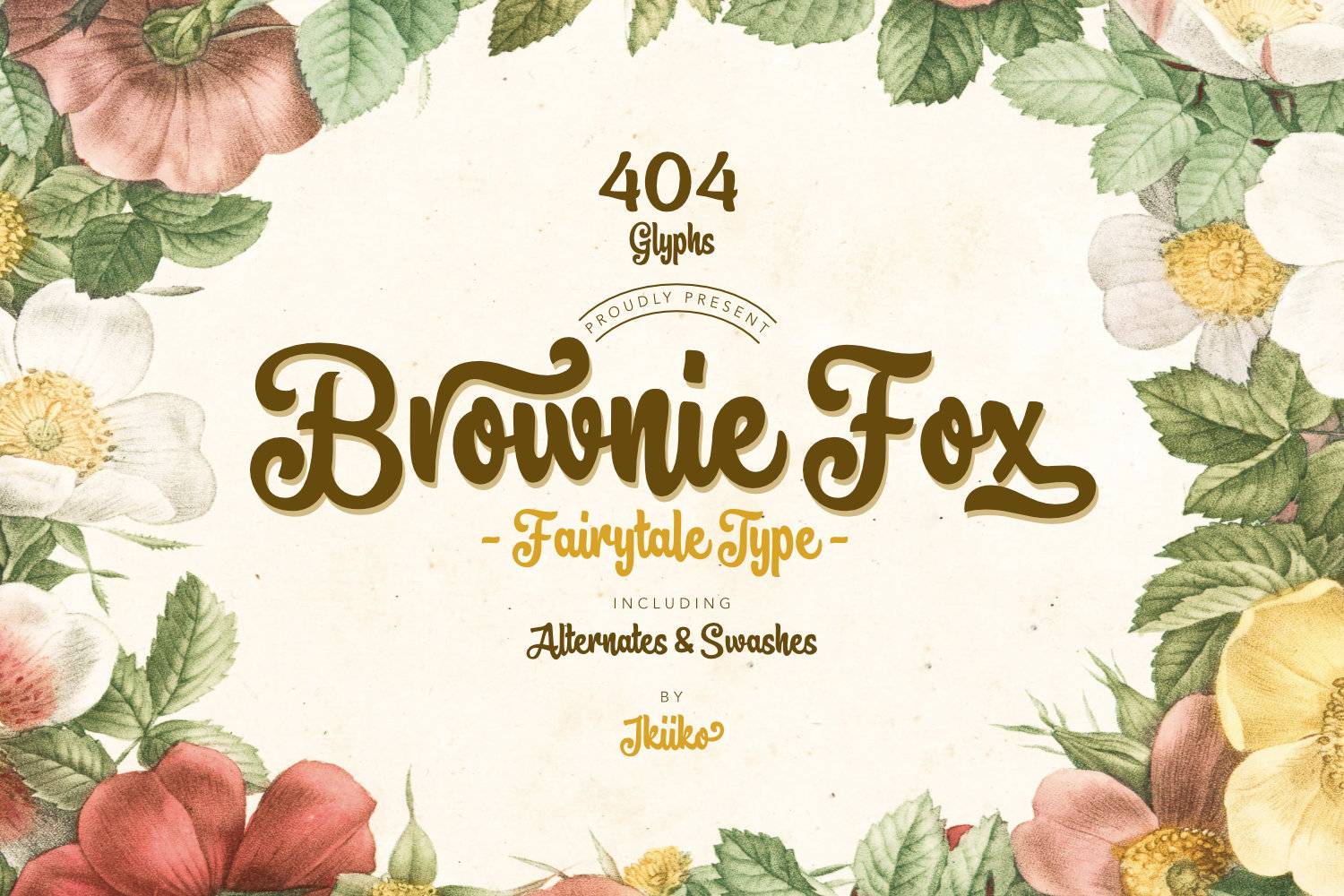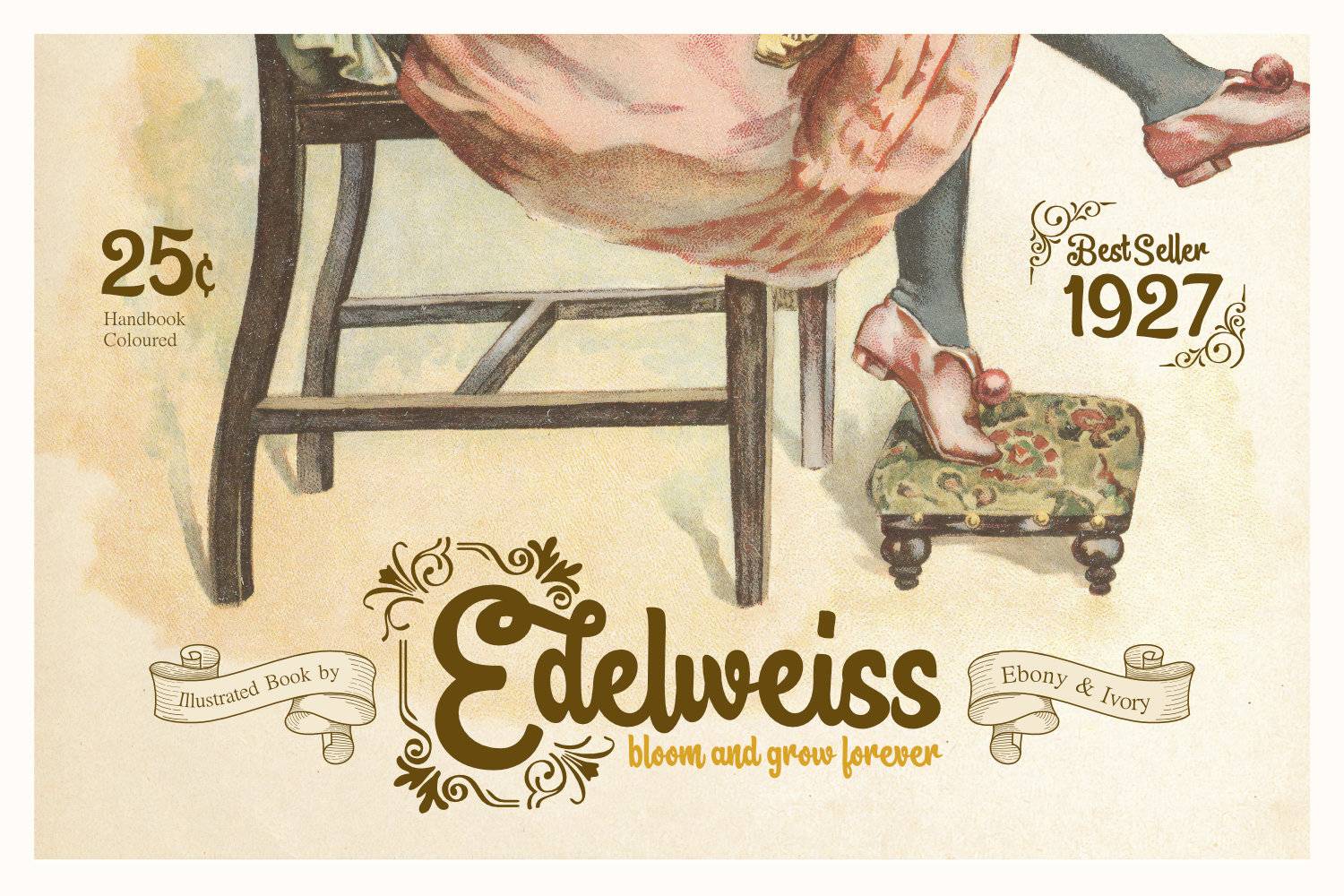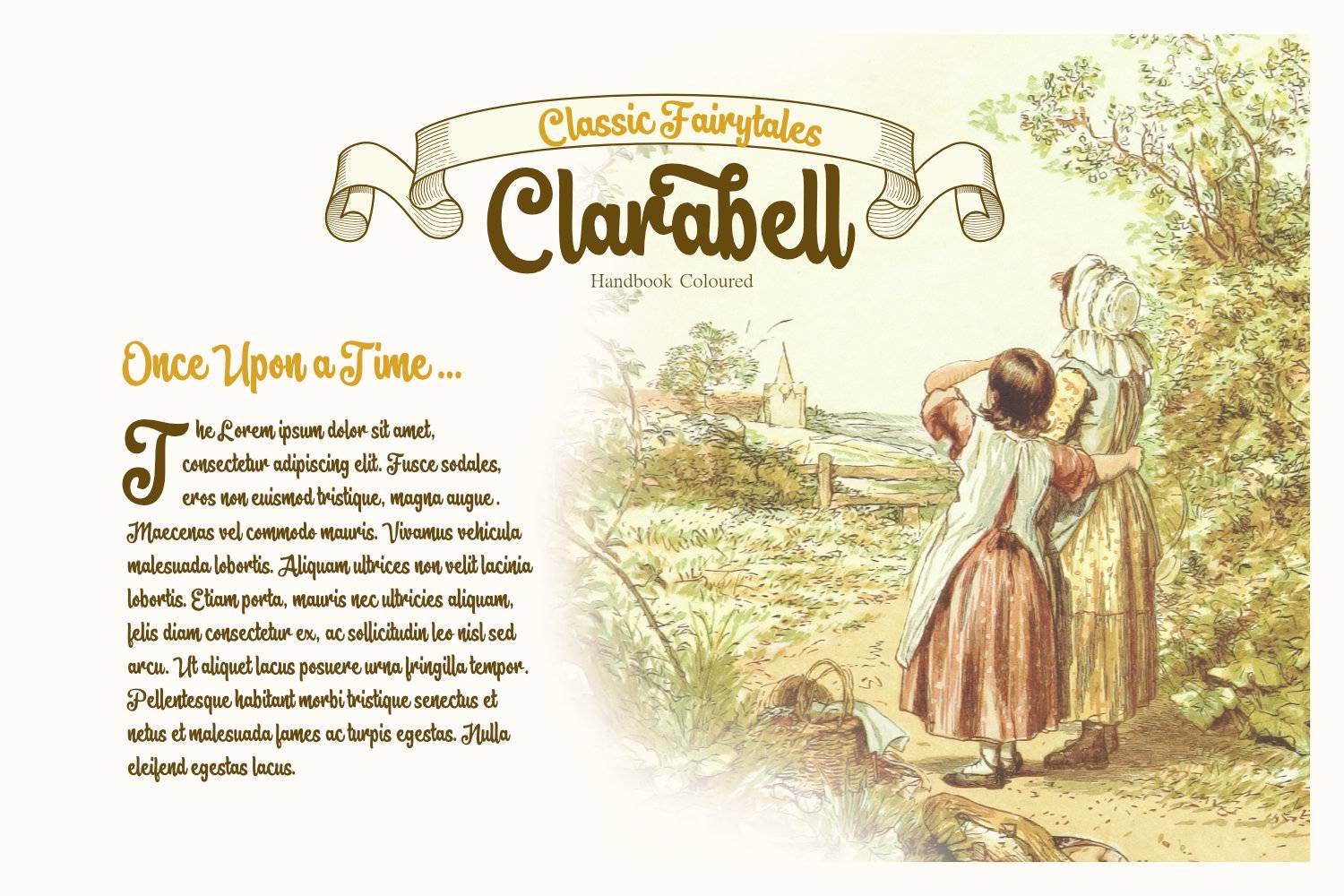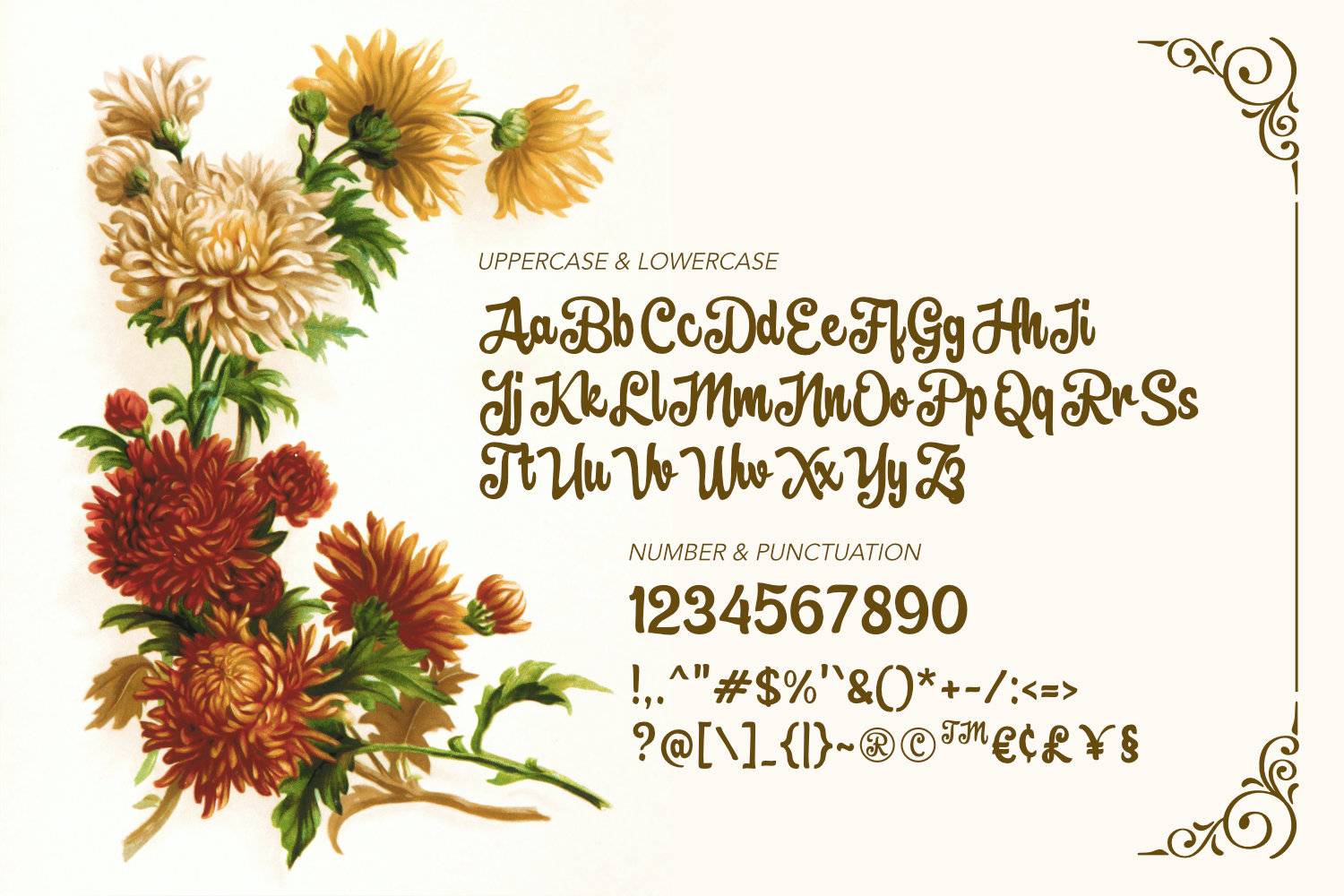
Brownie Fox is a playful and whimsical script font with bold, rounded strokes and a casual yet distinct personality. Its solid weight and exaggerated curves make it ideal for friendly headlines, logos, and decorative uses where a fun and inviting tone is desired. This font works well for branding, packaging, and creative projects that want to convey warmth and approachability.
Brownie Fox Font